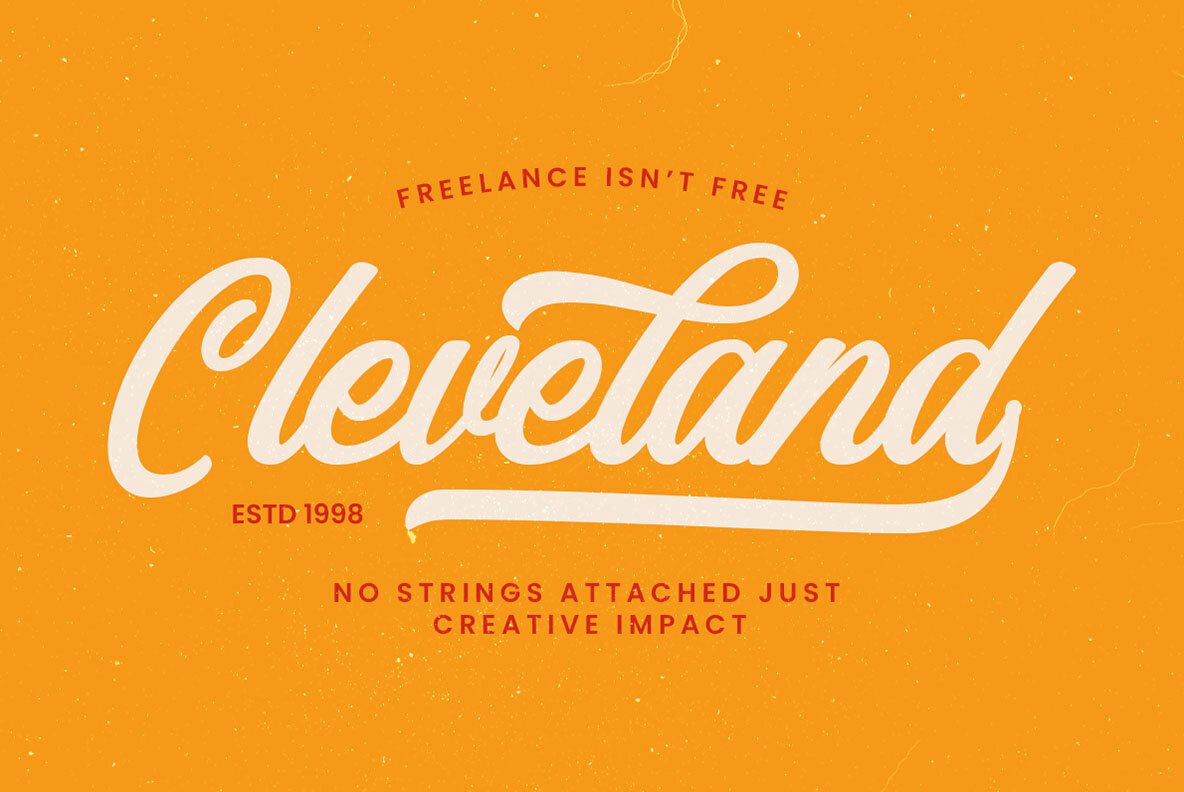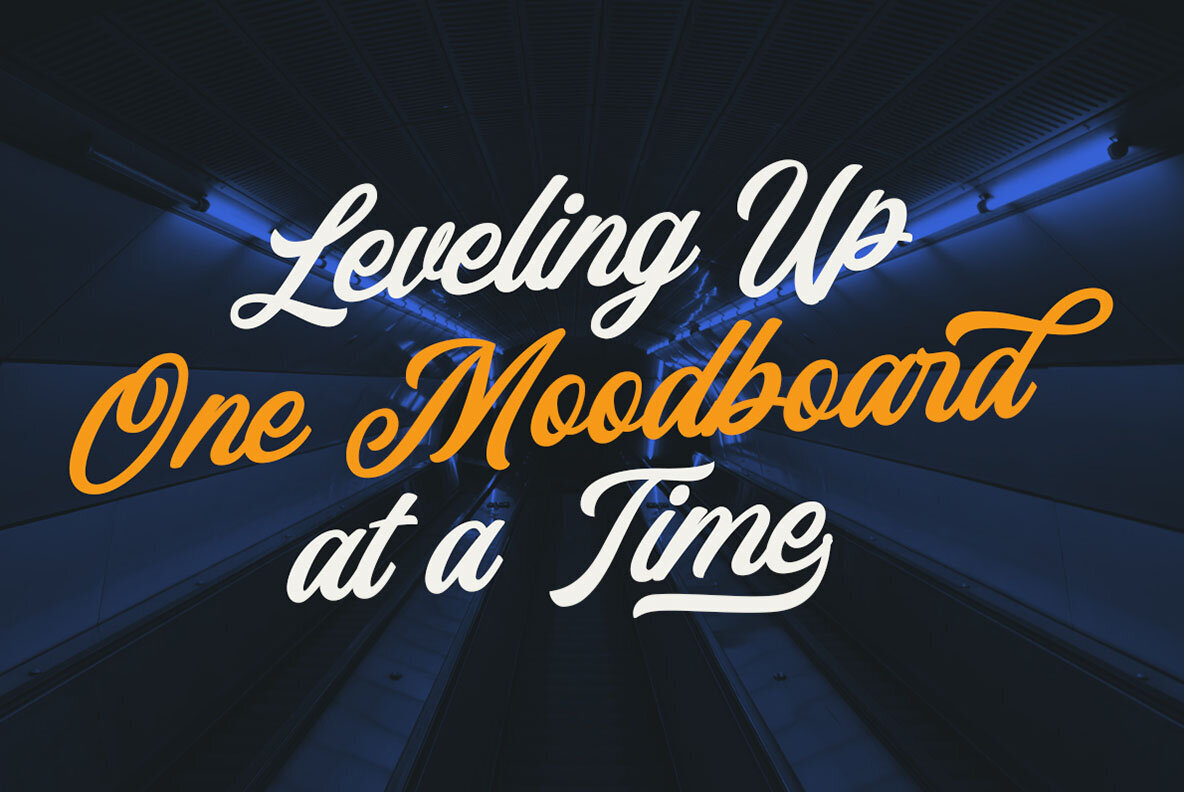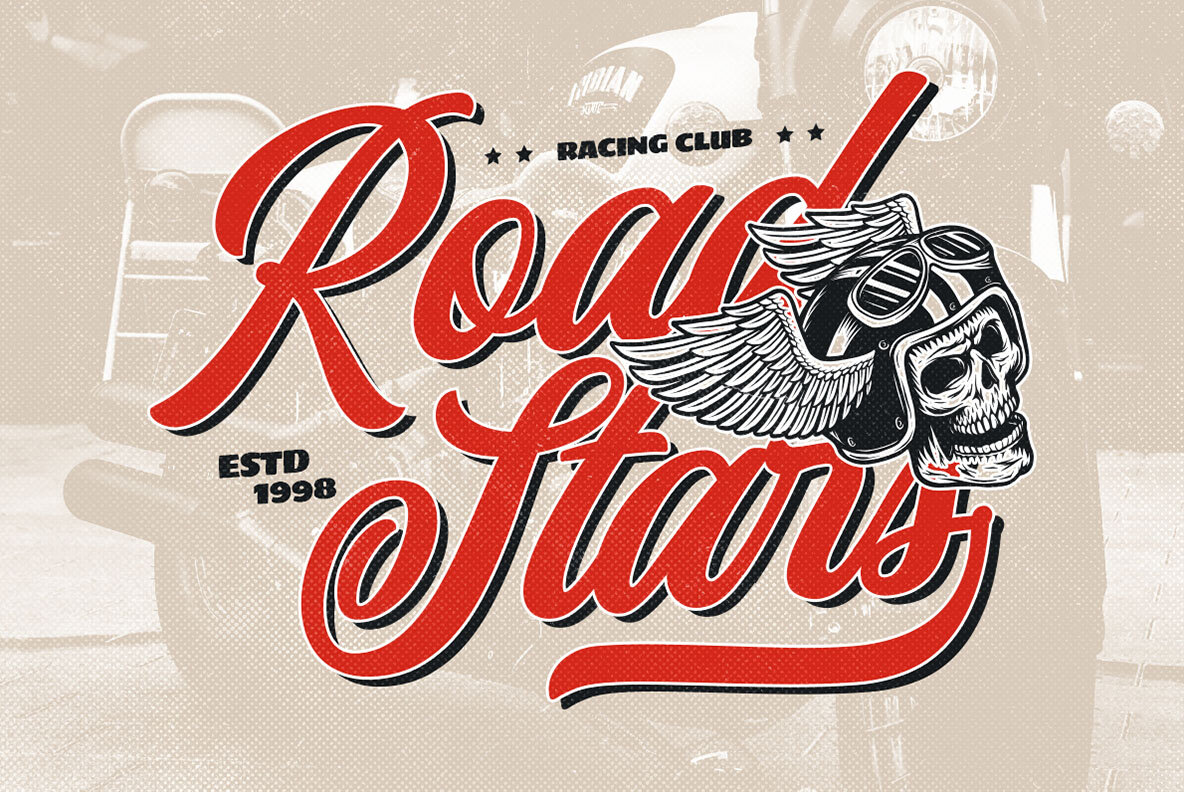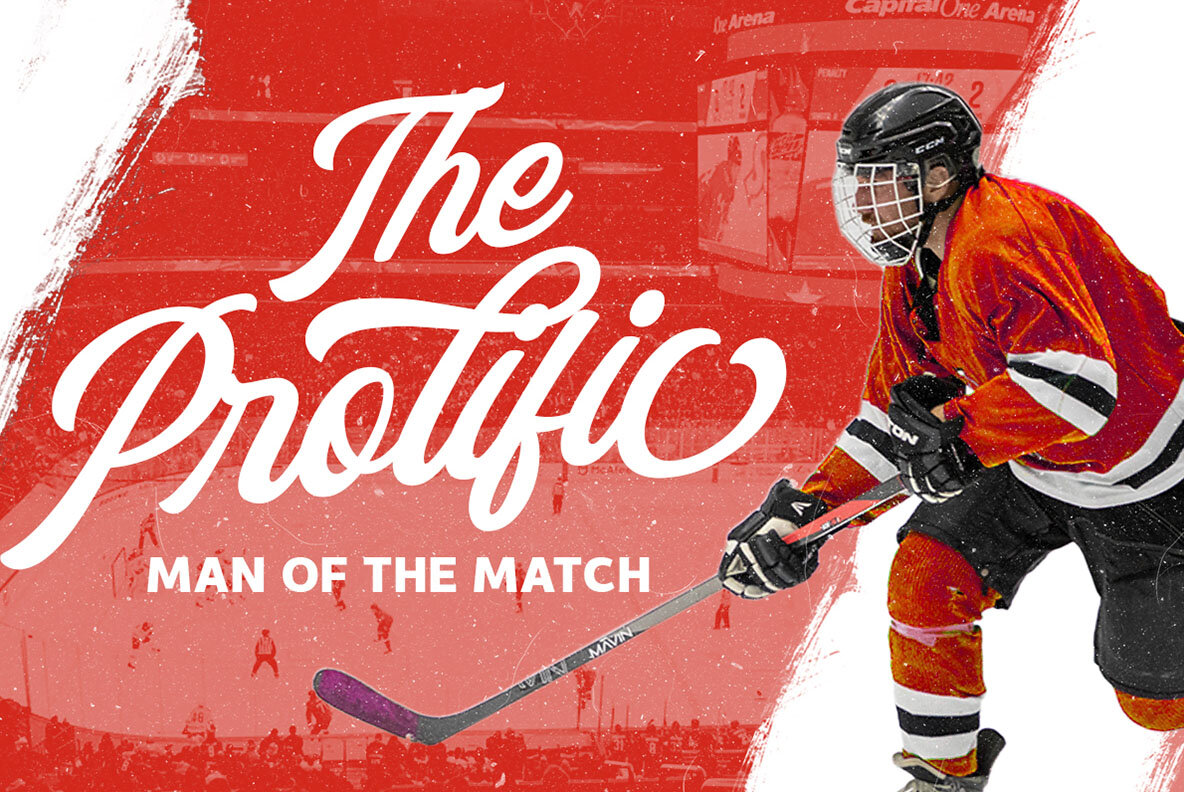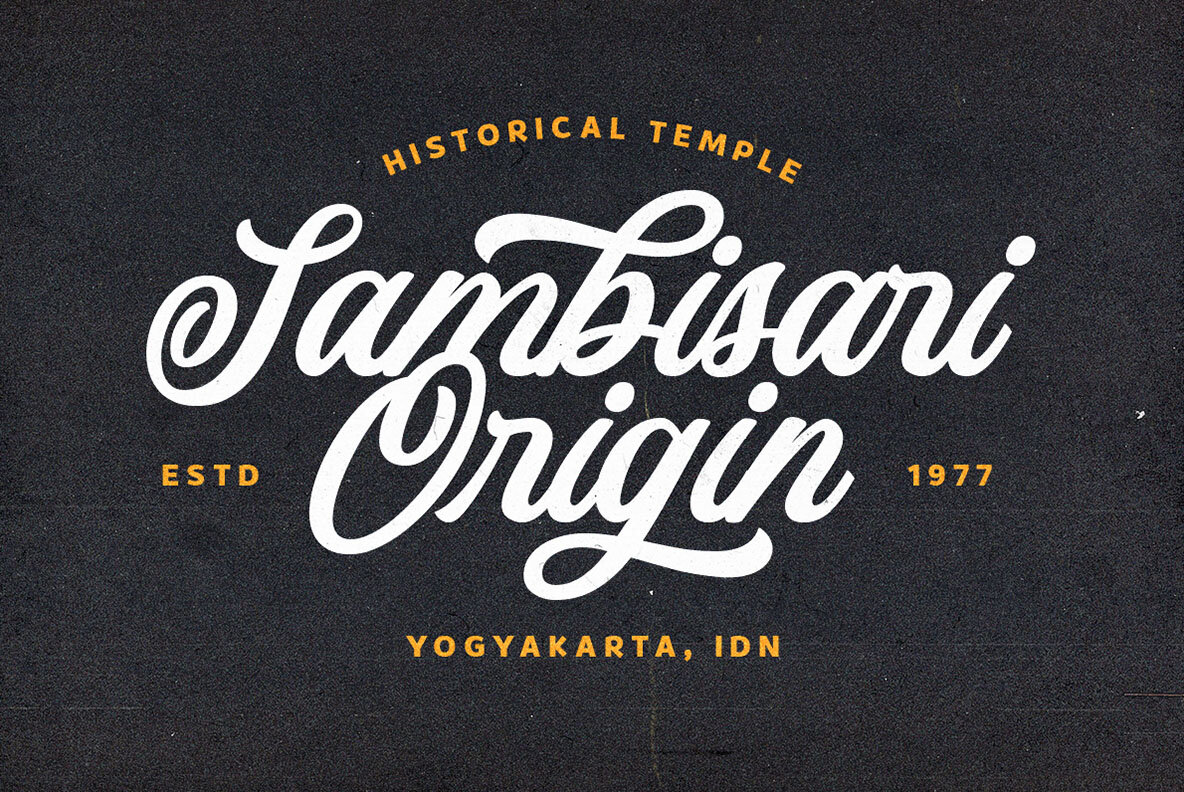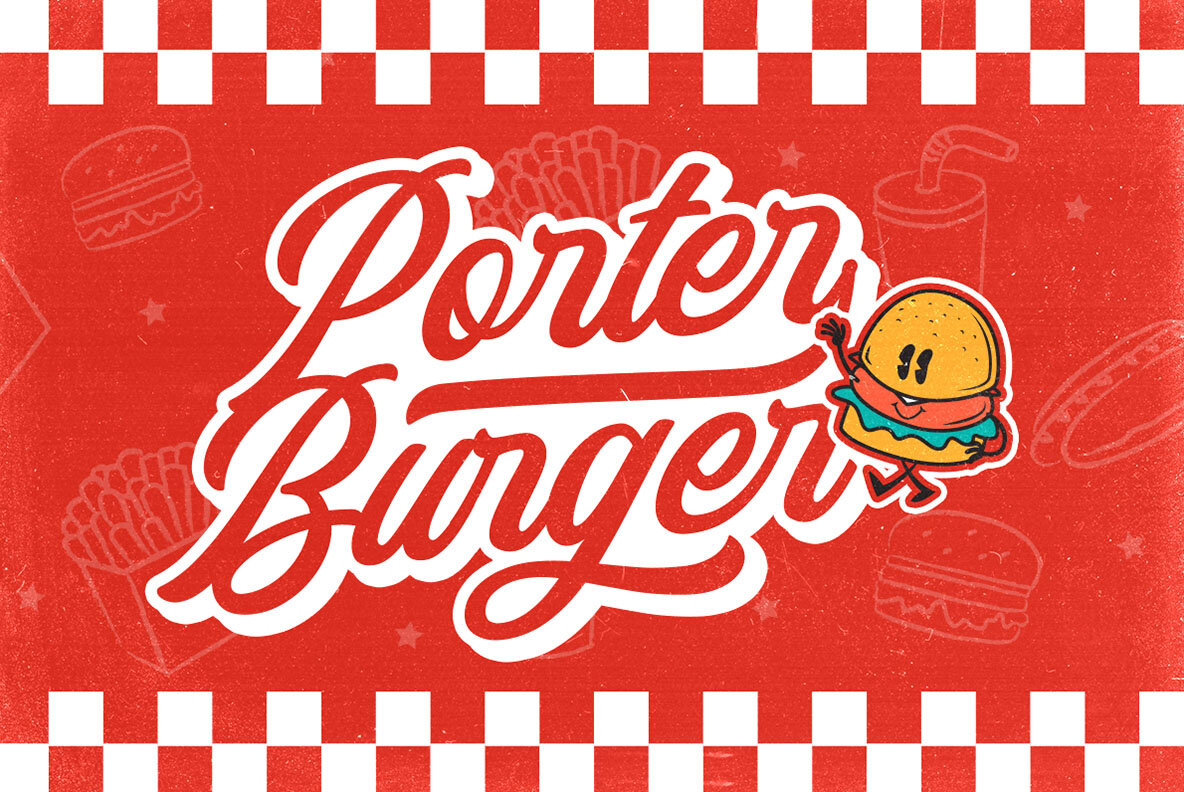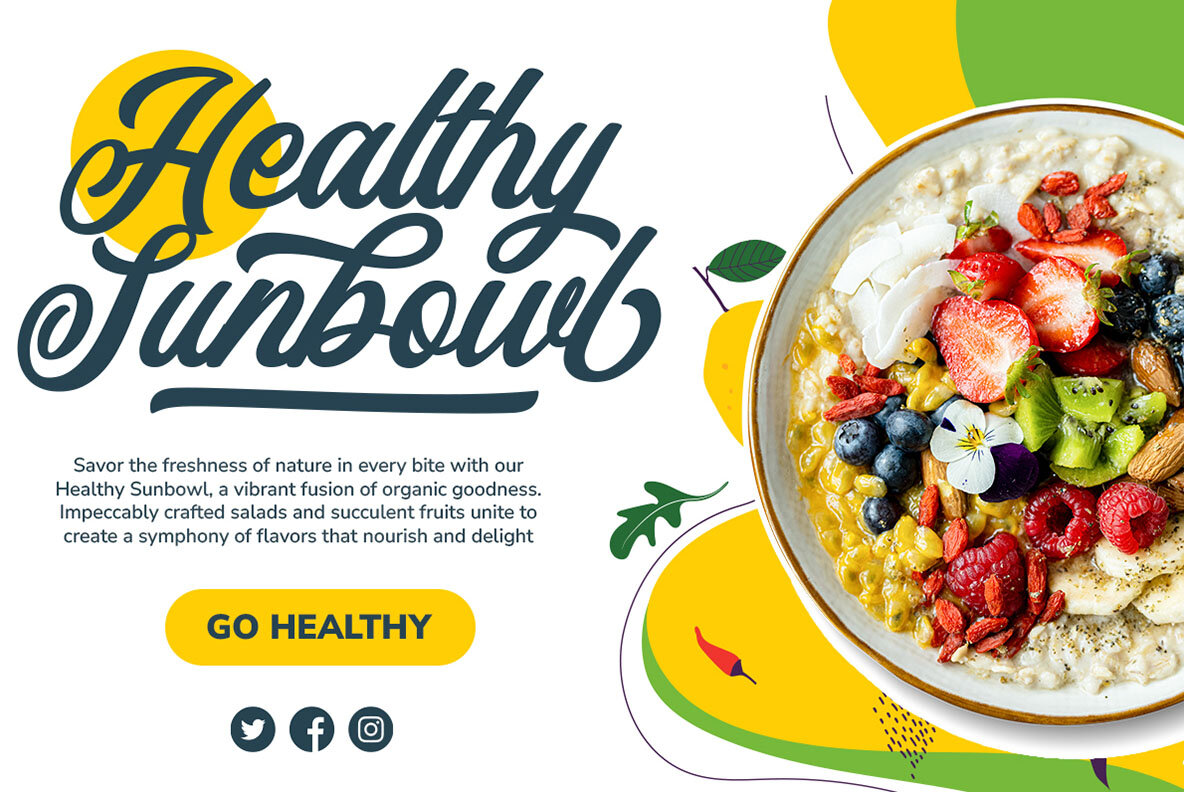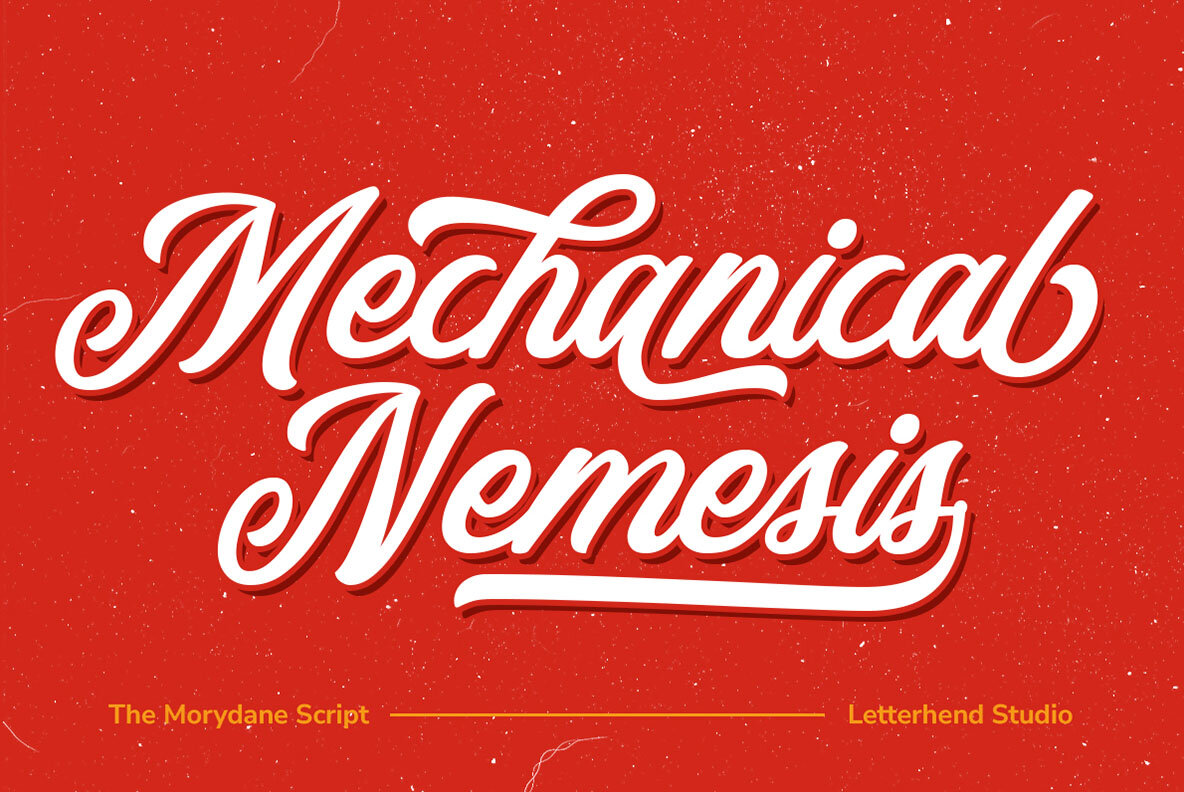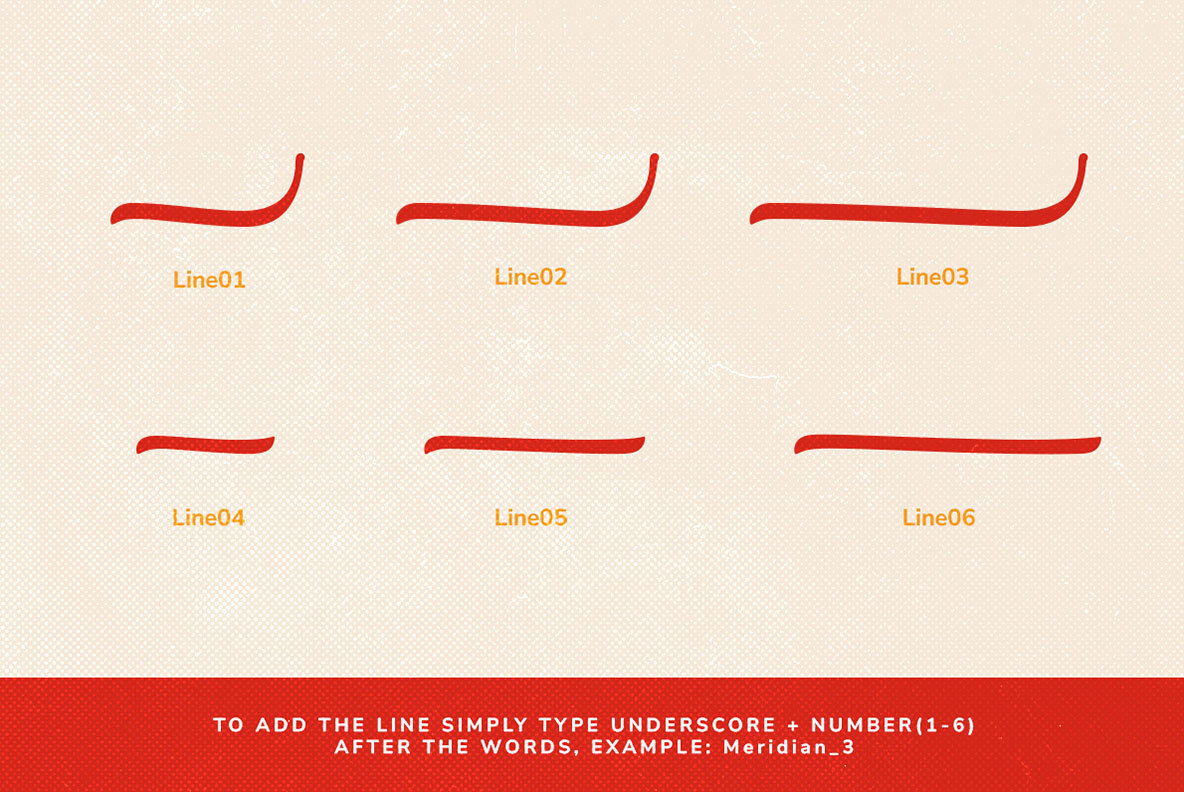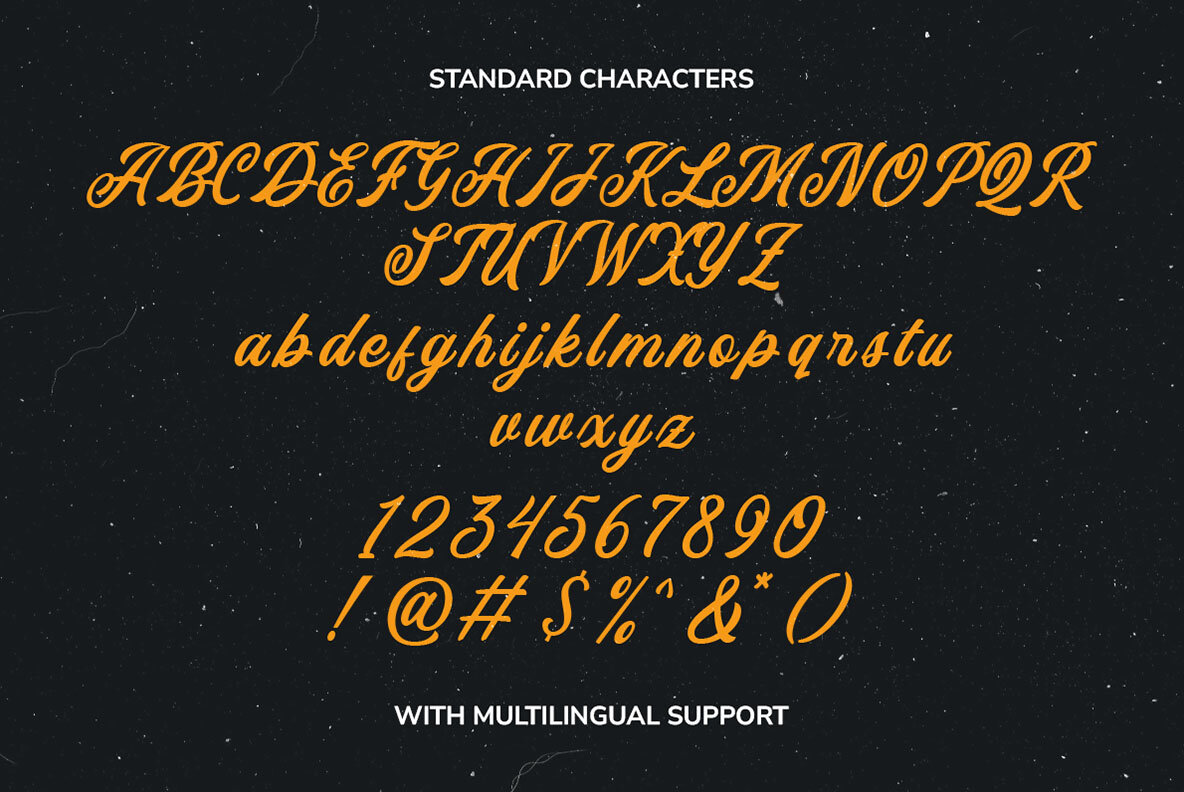
The Morydane Font
The Morydane Regular
Introducing Morydane a script font perfect for designers looking for a modern and casual style. With its clean lines and flowing curves, this font is ideal for adding an interesting touch to your designs,especially in logo, and the other various formal forms such as invitations, labels, logos, magazines, books, greeting / wedding cards, packaging, fashion, make up, stationery, novels, labels or any type of advertising purpose.